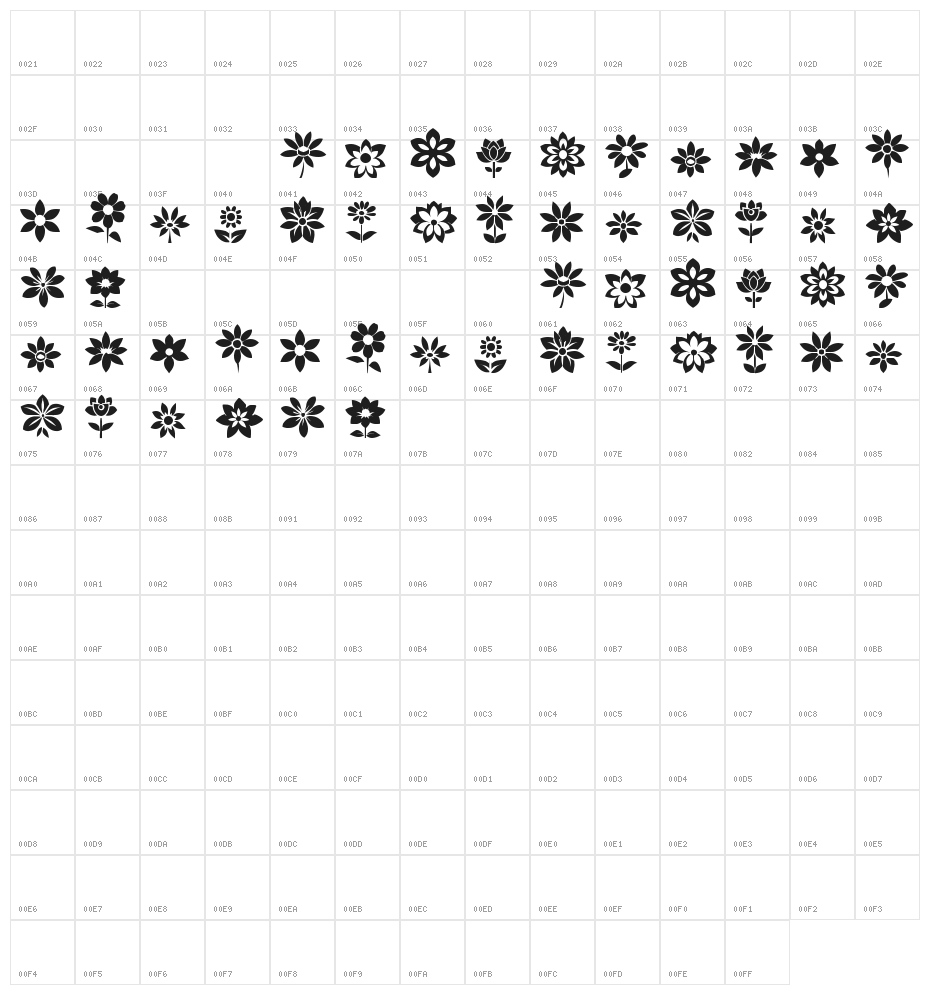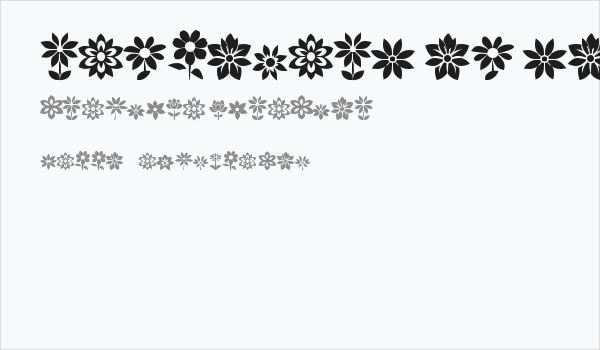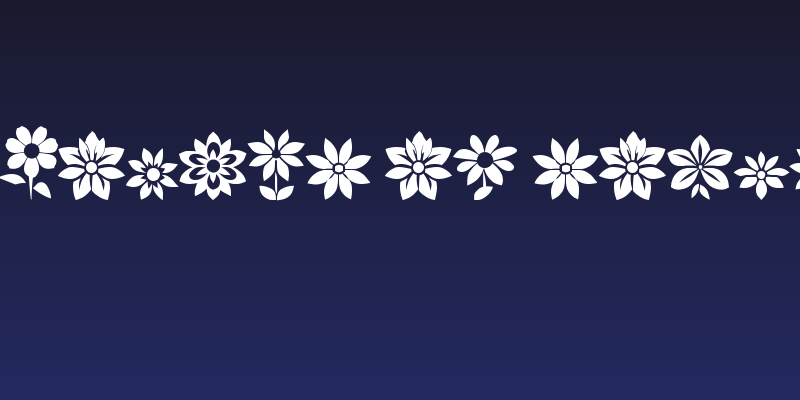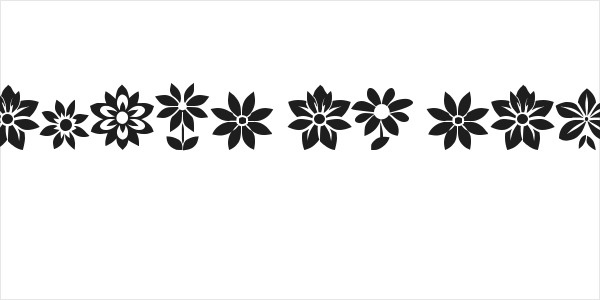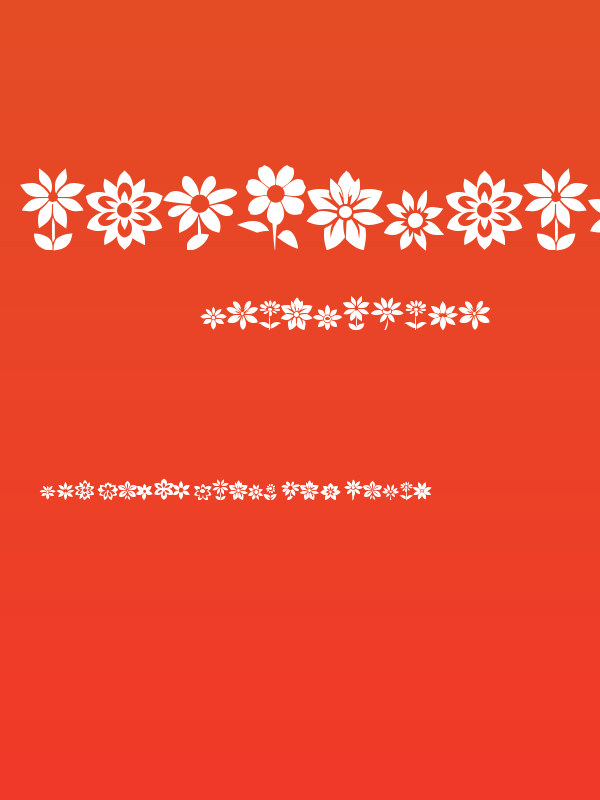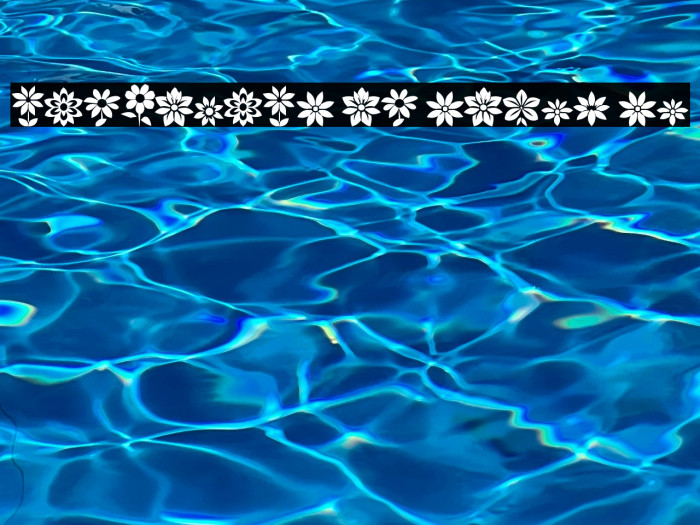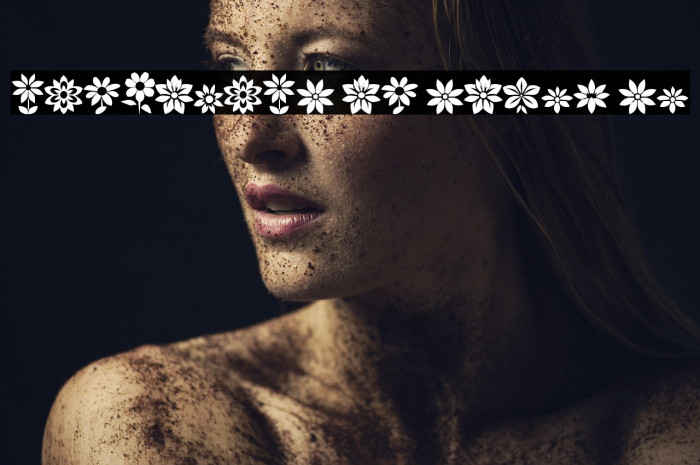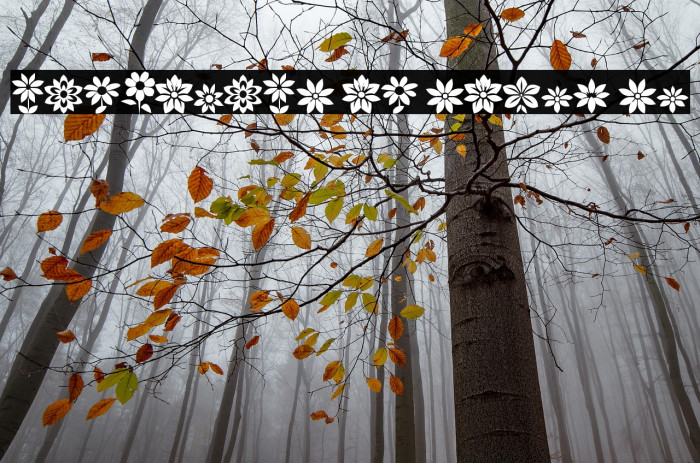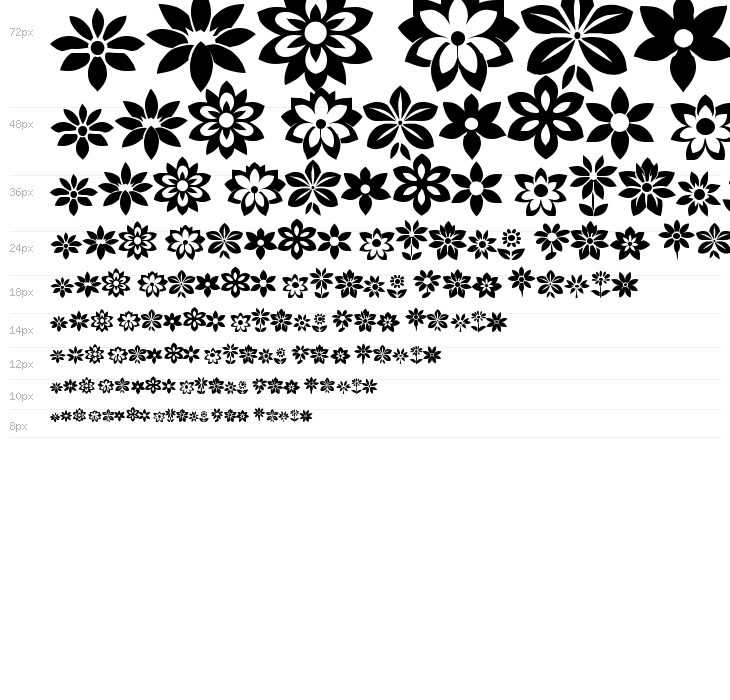
ReFlowers of South St Font
ReFlowers of South St Description
Decorative floral pattern with stylized flower motifs arranged in two horizontal rows.
| Overall Style | Vintage, Decorative |
| Use Case | Borders, decorative accents, stationery design |